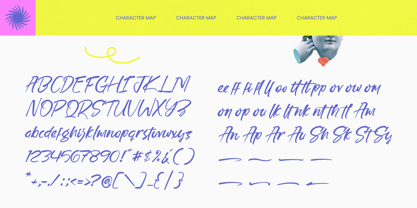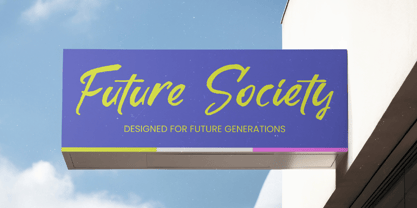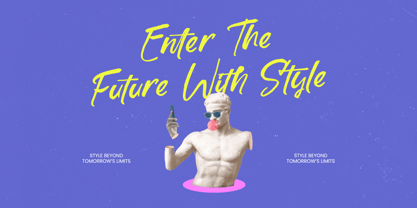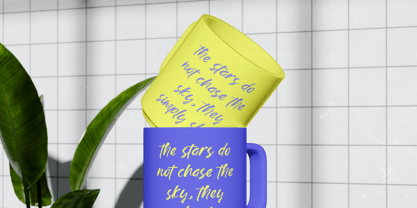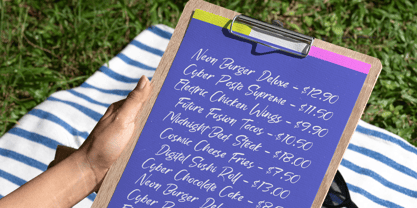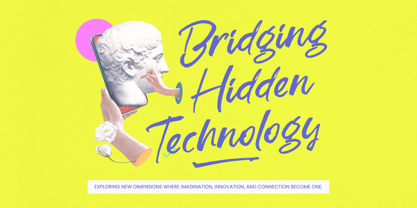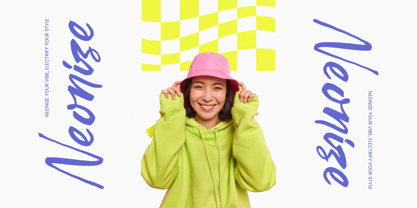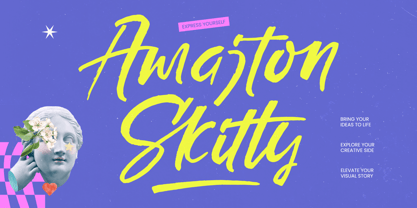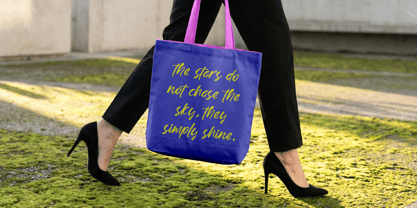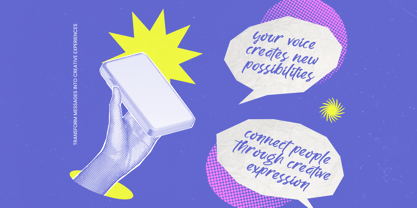
Amajton Skitty
Die Schriftfamilie Amajton Skitty wurde von Heru Utama Putra entworfen und von Stylishtype Studio veröffentlicht. Amajton Skitty enthält 2 Stile und Familienpaketoptionen. Mehr über diese Familie
Amajton Skitty captures the raw energy of a handwritten brush stroke, delivering an unapologetic punch of personality to every design canvas. This typeface isn't just a font; it is a bold statement of creative freedom and modern artistry.
Drawing inspiration from contemporary street art and the rhythmic motion of a painter’s hand, this font reflects an urban sophistication blended with classical aesthetics. The textured edges and fluid connections evoke the feeling of ink meeting paper in a moment of pure inspiration.